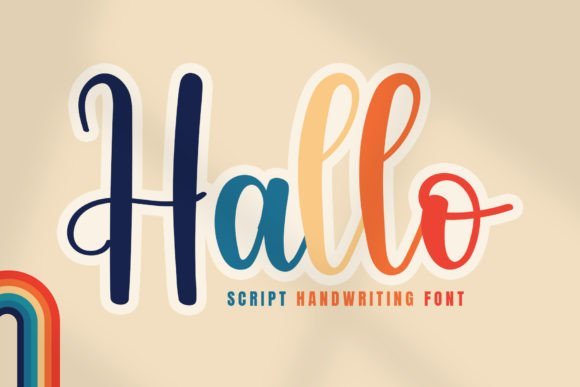
Have you ever been working on a design project and suddenly, the perfect font pops into your mind? It’s a moment of pure creative joy, where everything falls into place, and you can’t wait to bring your vision to life. For many designers, that moment often involves the Hallo Font, a flowing handwritten font that adds an elegant touch to any project.
As a versatile and timeless font, Hallo Font is perfect for creating spectacular designs that stand out from the crowd. Whether you’re working on a branding project, a wedding invitation, or a social media campaign, this font is sure to make your designs shine. And with its distinct style, you can trust that your work will be truly unique and memorable.
For designers, the Hallo Font is a valuable asset that can elevate any project to the next level. Its elegant touch and timeless style make it a go-to choice for creating stunning designs that leave a lasting impression.
Hallo Font Key Features
- Font Family: Hallo Font comes in 5 different font families, each with its unique characteristics and styles.
- Unique Characteristics: Hallo Font features a distinctive, hand-drawn design with subtle imperfections, giving it a personal and human touch.
Design Review: Hallo Font
Overall, I’d say Hallo Font is a decent addition to any designer’s toolkit. While it’s not going to revolutionize the world of typography, it does have some nice qualities that make it worth considering.
- Playful and Whimsical Feel: Hallo Font has a lighthearted, approachable vibe that’s perfect for projects that need a touch of fun.
- High-Quality Rendering: The font is well-crafted and renders beautifully, even at smaller sizes.
- Good Legibility: Hallo Font is easy to read, even in longer blocks of text.
Limitsations ⚠️
- Limited Character Set: Hallo Font is a display font, which means it’s not ideal for body text or situations where a wide range of characters is needed.
- No Language Support: Hallo Font is primarily designed for Latin-based languages, which may limit its usability for projects that require other languages.
- Not Suitable for Serious or Professional Projects: Hallo Font’s playful nature makes it better suited for creative or entertainment projects, rather than serious or professional ones.
Hallo Font is a solid choice for designers who need a fun, eye-catching font for their projects. While it may not be the best fit for every situation, it’s a nice addition to any designer’s toolkit.
Getting the Most Out of Hallo Font
Here are some tips to get the most out of Hallo Font:
- Use Hallo Font for headings and titles to create a visually appealing contrast.
- Combine Hallo Font with other fonts for a creative and stylish design.
Hallo Font is commonly used for:
- Fashion and lifestyle design